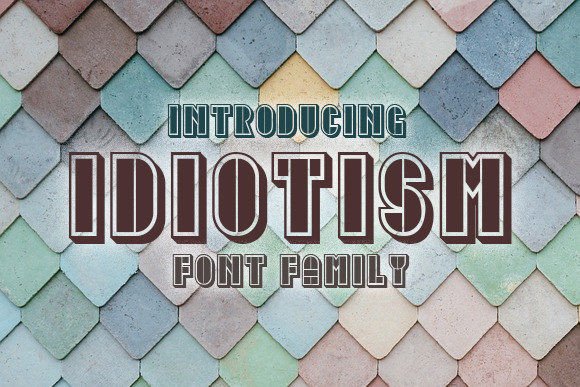
Dive into the realm of elegance and sophistication with Idiotism Font, a captivating display font that will make your designs shine. This geometric masterpiece, crafted by the visionary Vladimirnikolic, is the epitome of class and modernity.
With its clean lines, sharp angles, and impeccable balance, Idiotism Font exudes an aura of timeless allure. Whether you're crafting stunning posters, eye-catching flyers, or impactful banners, this font will elevate your creations to new heights.
Its versatility extends beyond its aesthetic appeal. Idiotism Font seamlessly adapts to a myriad of design styles, from minimalist to ornate. Embrace the endless possibilities it holds – from elegant logos that command attention to captivating social media graphics that captivate your audience.
But what truly sets Idiotism Font apart is its ability to evoke emotions. Each letterform is imbued with a subtle yet undeniable charm, inviting you to express your individuality and make a lasting impression. Its clean, concise style conveys a sense of sophistication and professionalism, while its geometric precision adds a touch of intrigue.
Indulge in the exquisite beauty of Idiotism Font and experience the transformative power of typography. Let your designs speak volumes with a font that embodies both elegance and impact.